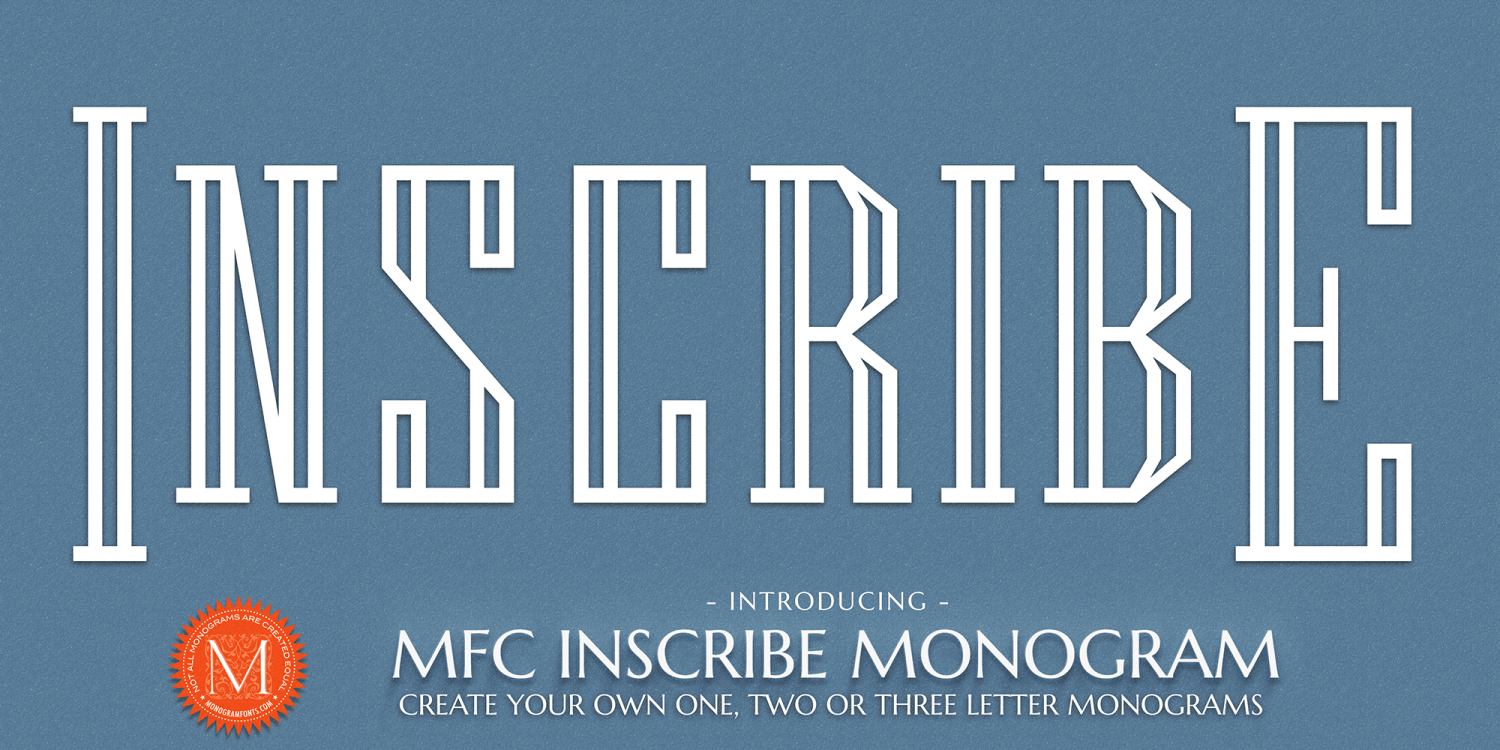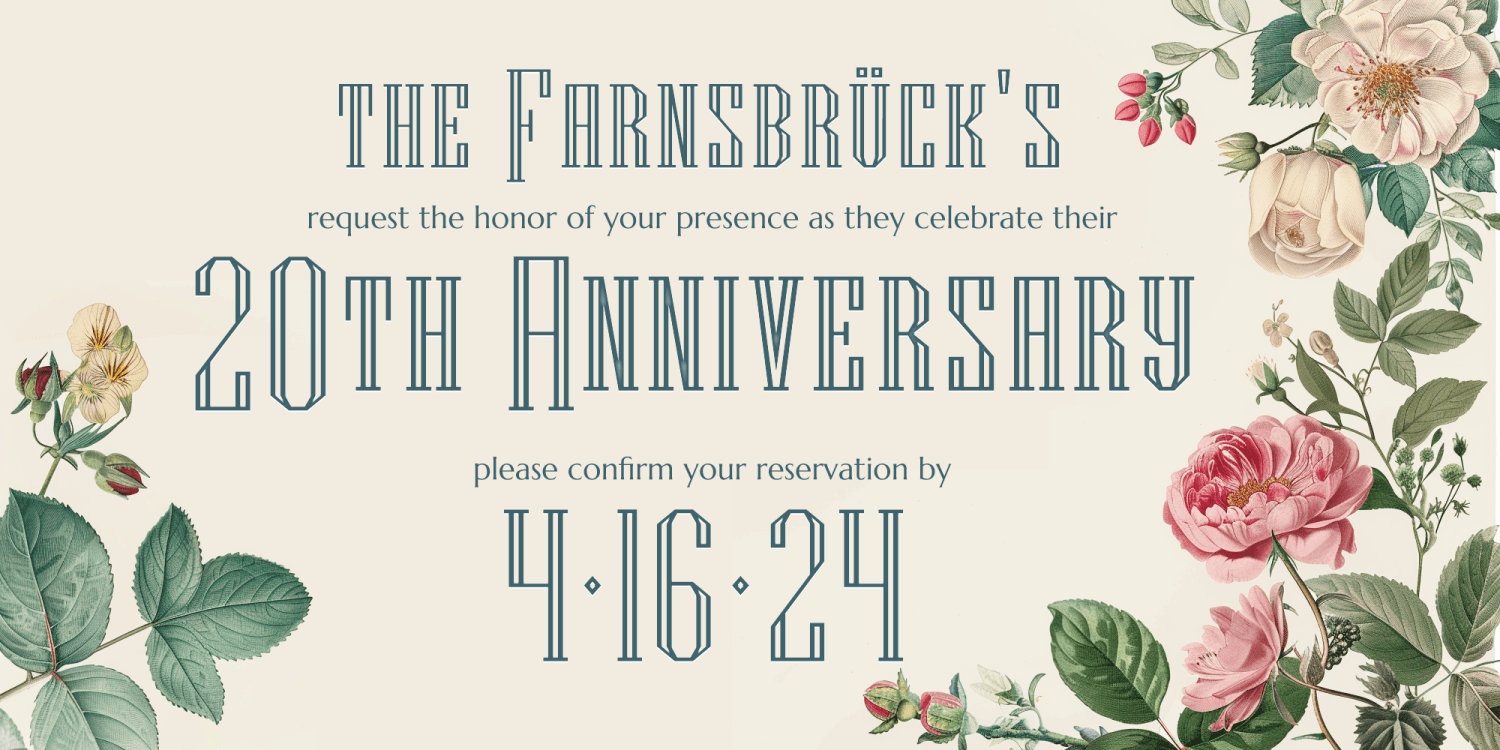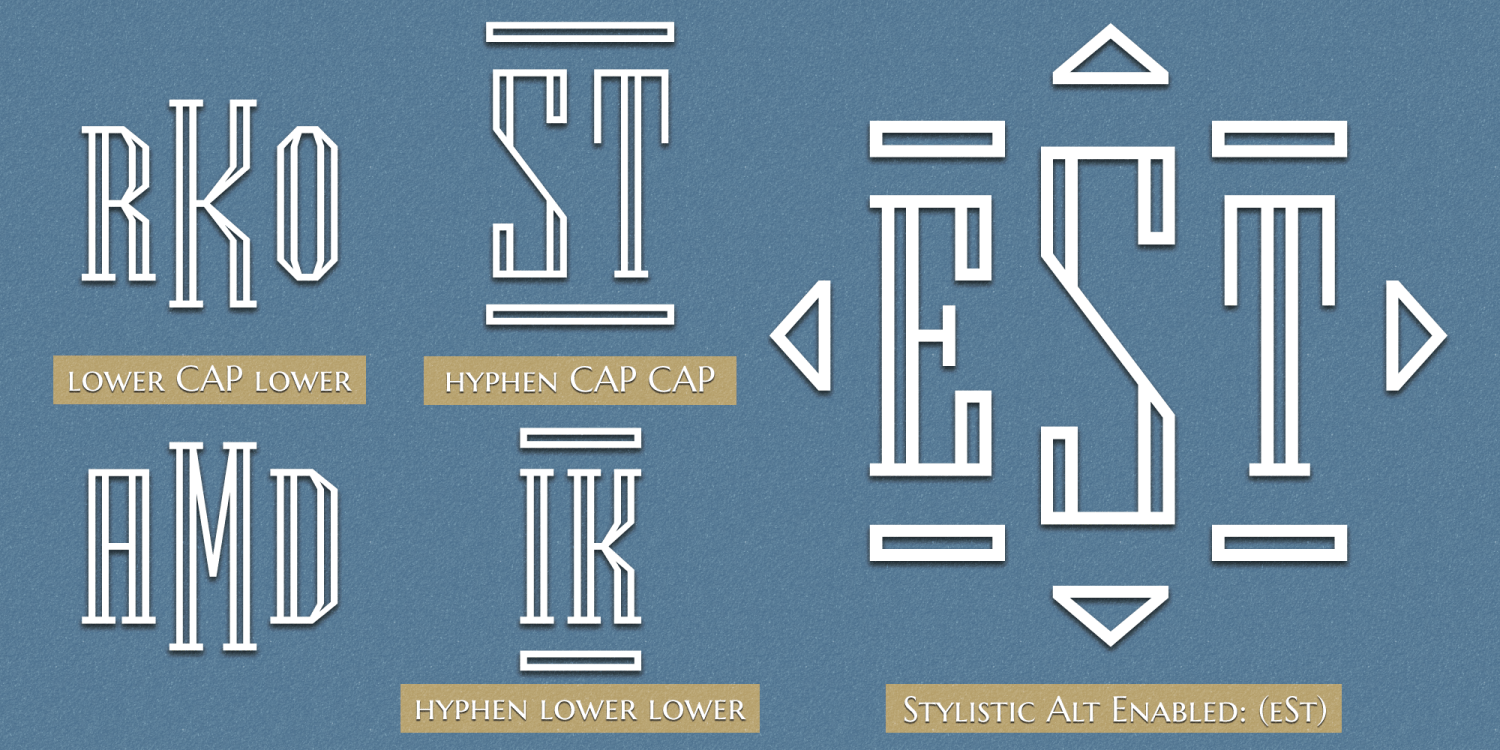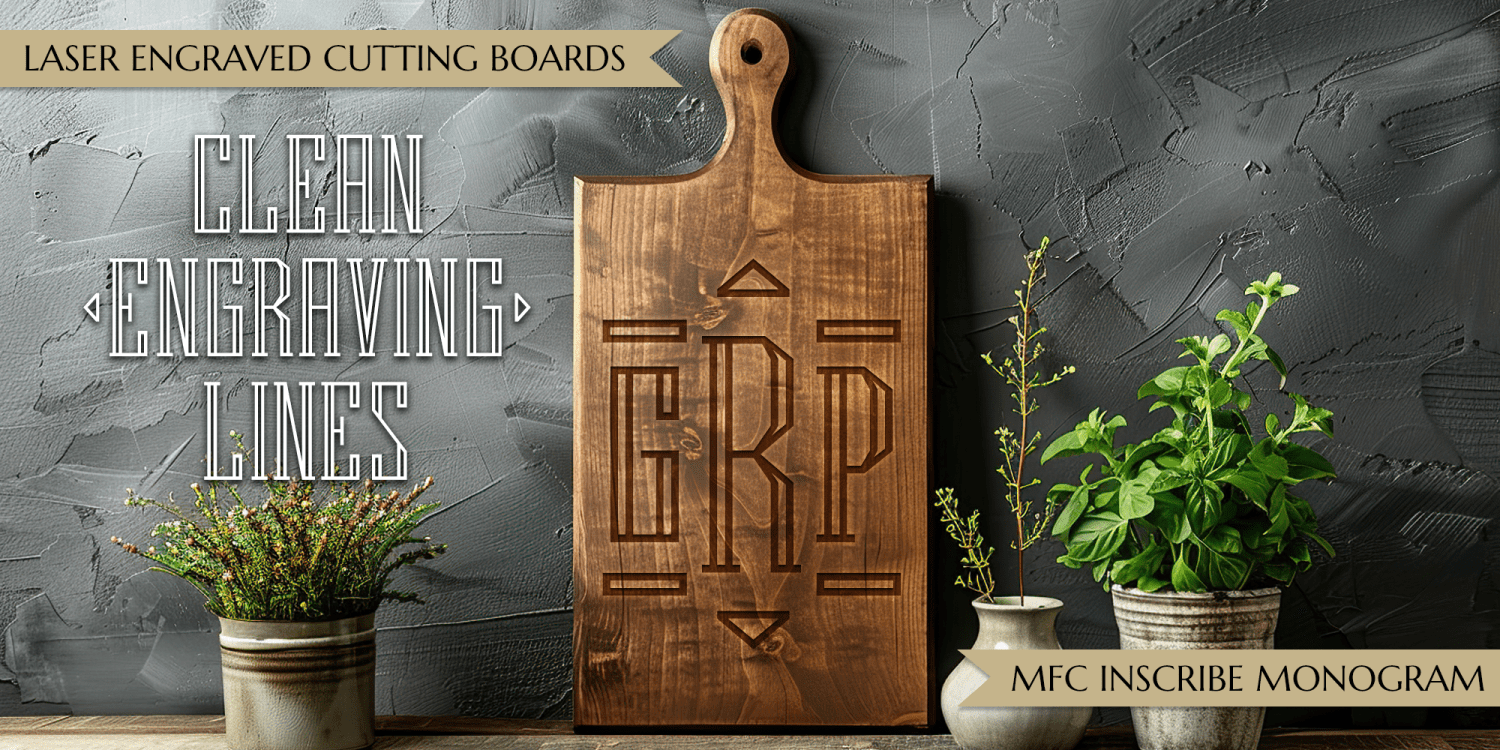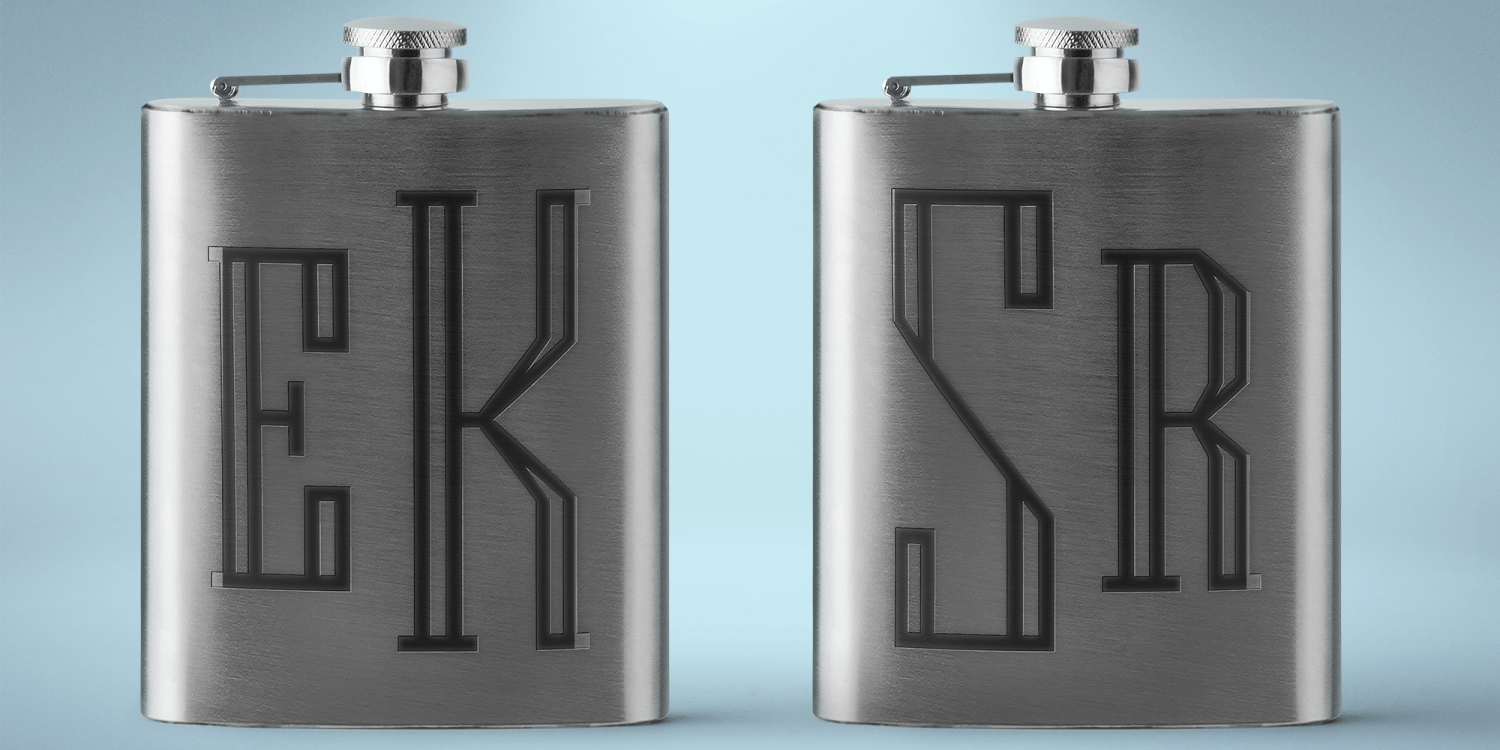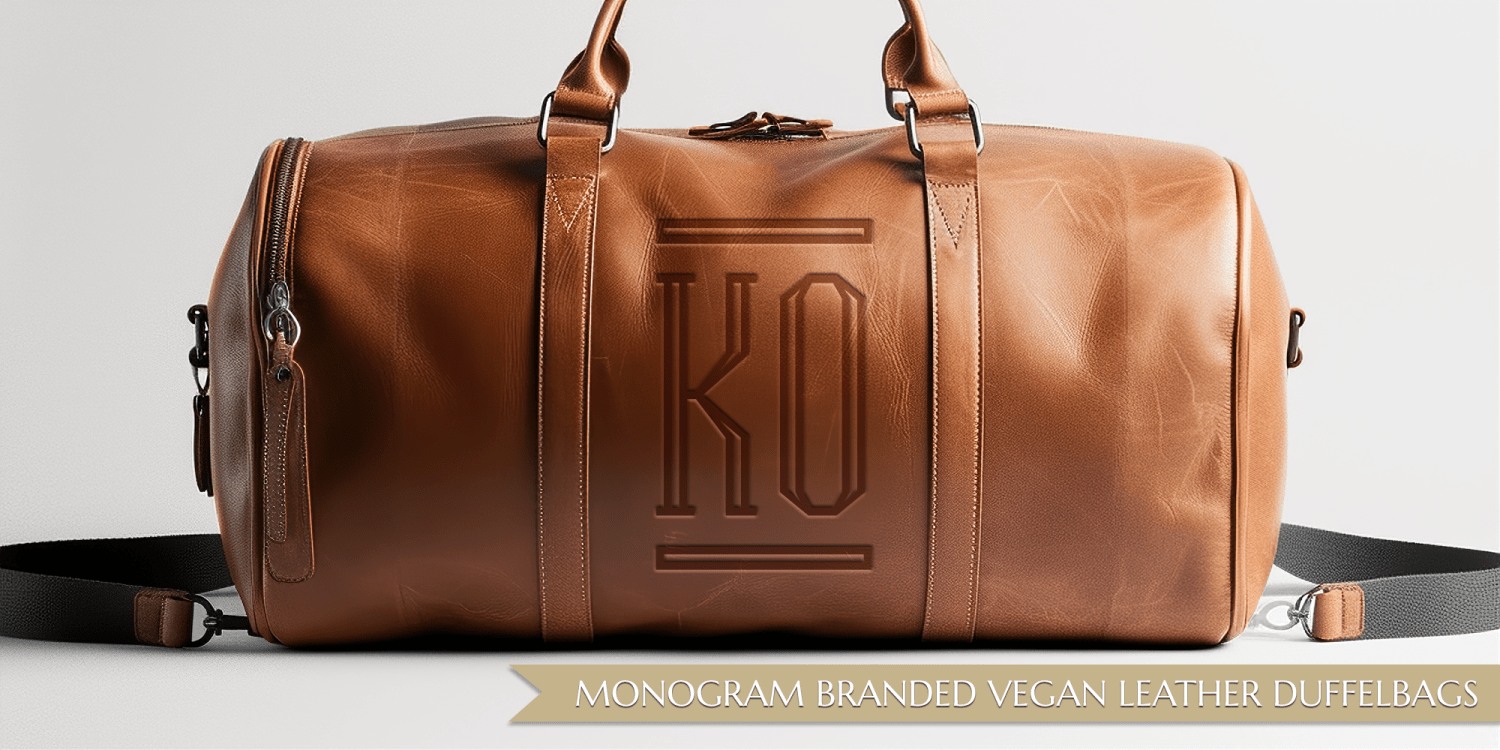
MFC Inscribe Monogram
The inspiration source for MFC Inscribe Monogram is a two letter capitals monogram from a late 1800's embroidery publication. It was originally intended to be a simple adornment to handkerchiefs, but the geometric rigid look called for so more possibilities. MFC Inscribe Monogram has a character set for titling use, but was built for monograms. You can type in varied combinations of monogram forms using Inscribe Monogram. By typing a hyphen before any two Capitals or to lowercase letters, you'll get top and bottom bar frames on your monogram. You can add diamond side ornaments with ( ). Enable Stylistic Alternates for bar framing on lowercase, and diamond framing on Capitals.
As the name suggests, we think MFC Inscribe Monogram is particularly suited for any some of engraving, embossing, impression based monogram purposes, but it could also easily be suited for embroidery as well. How will you use it?